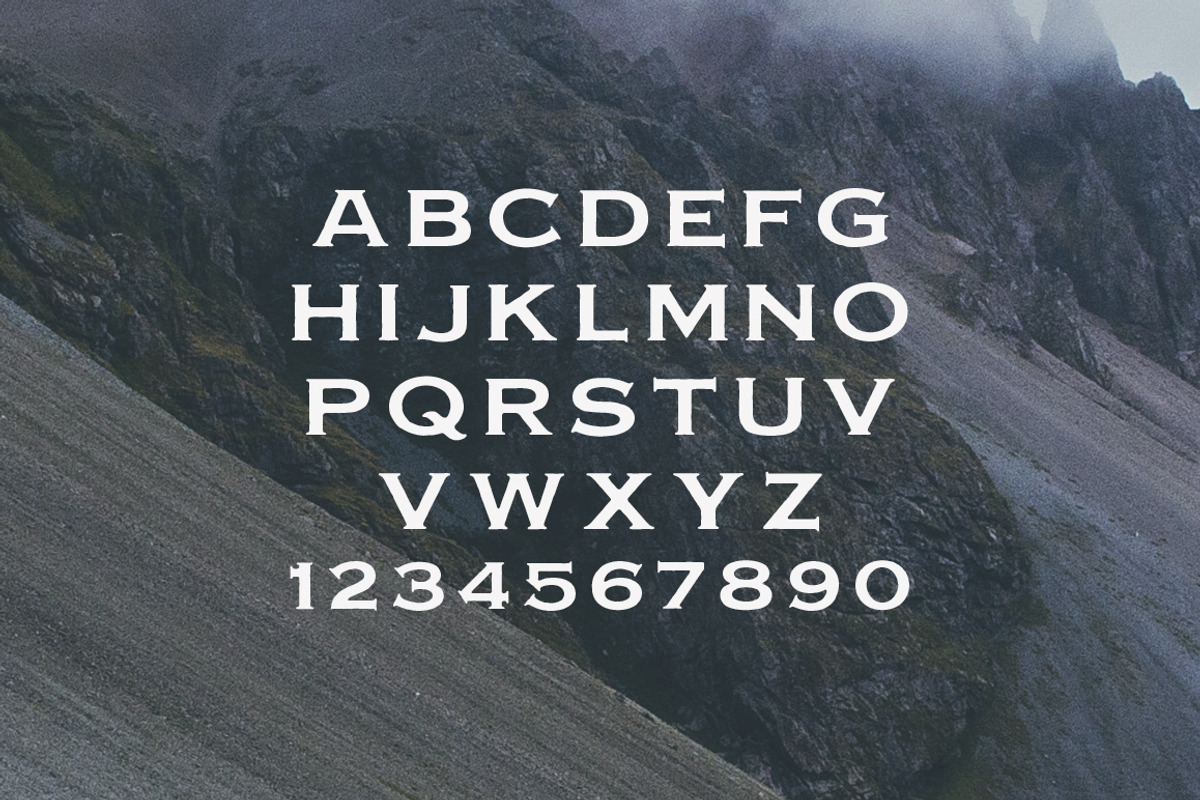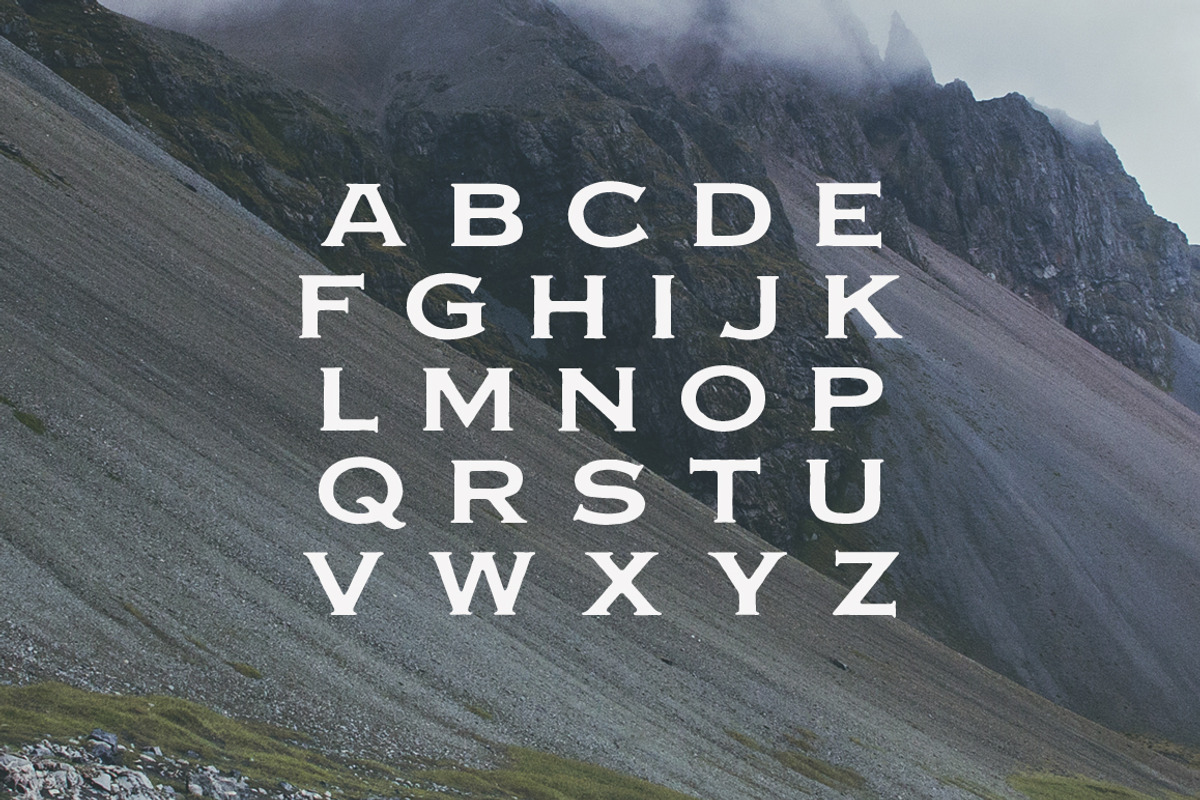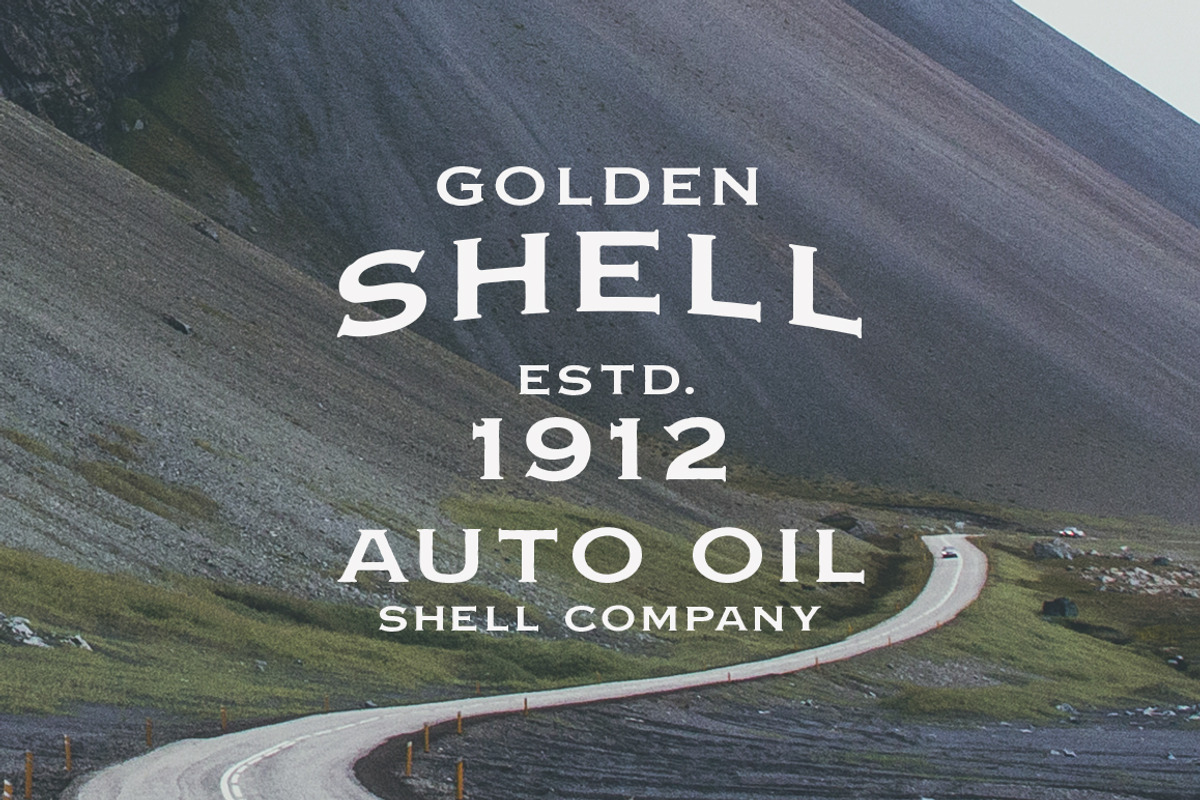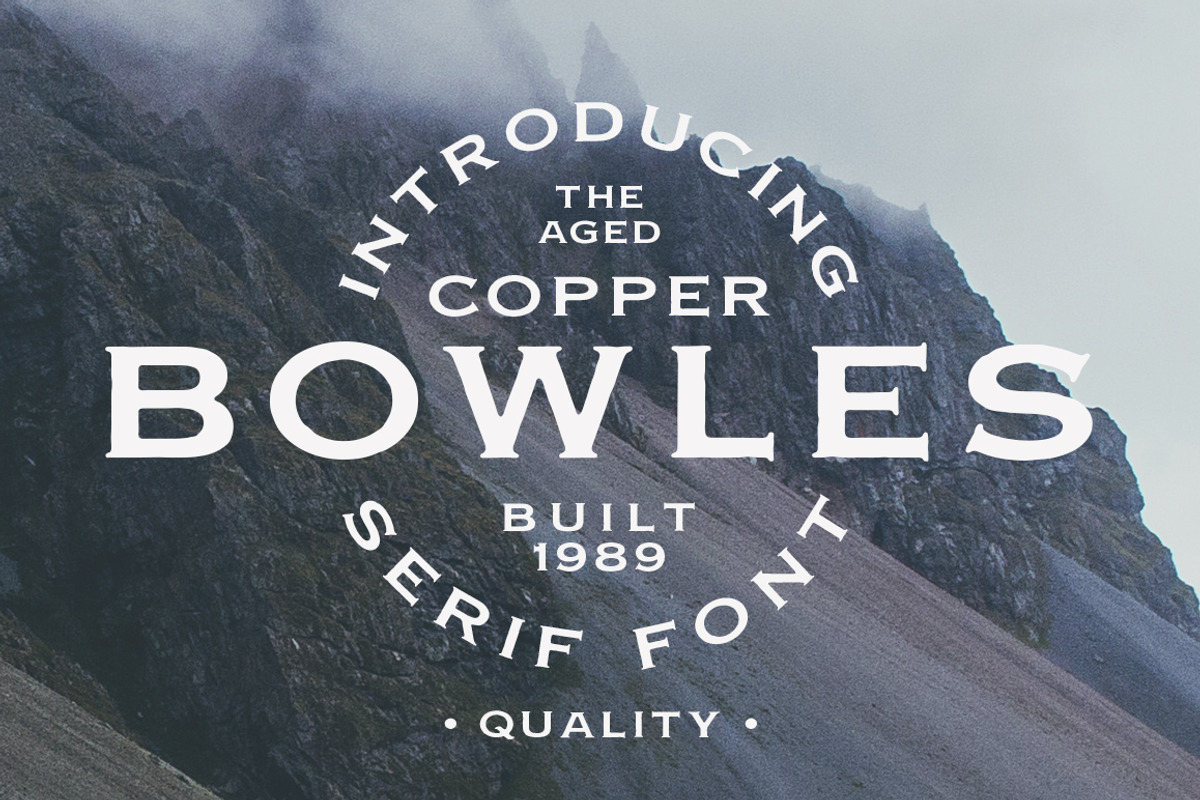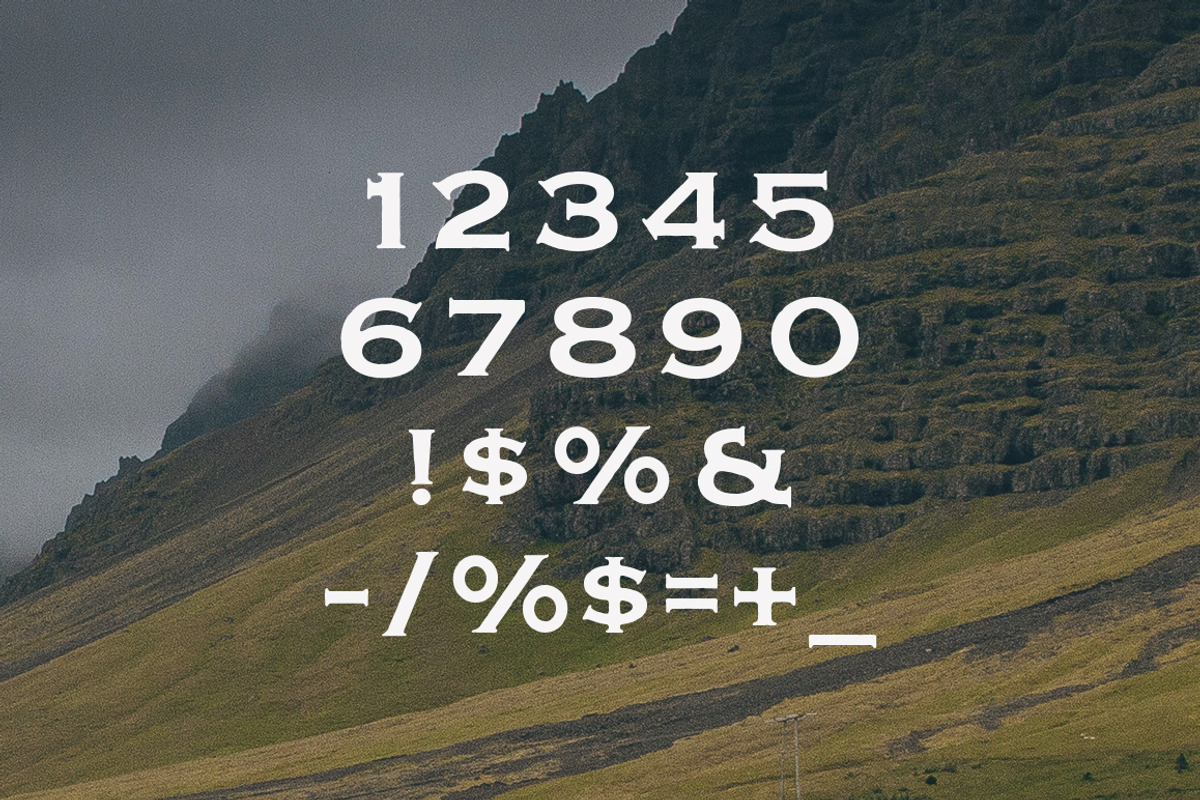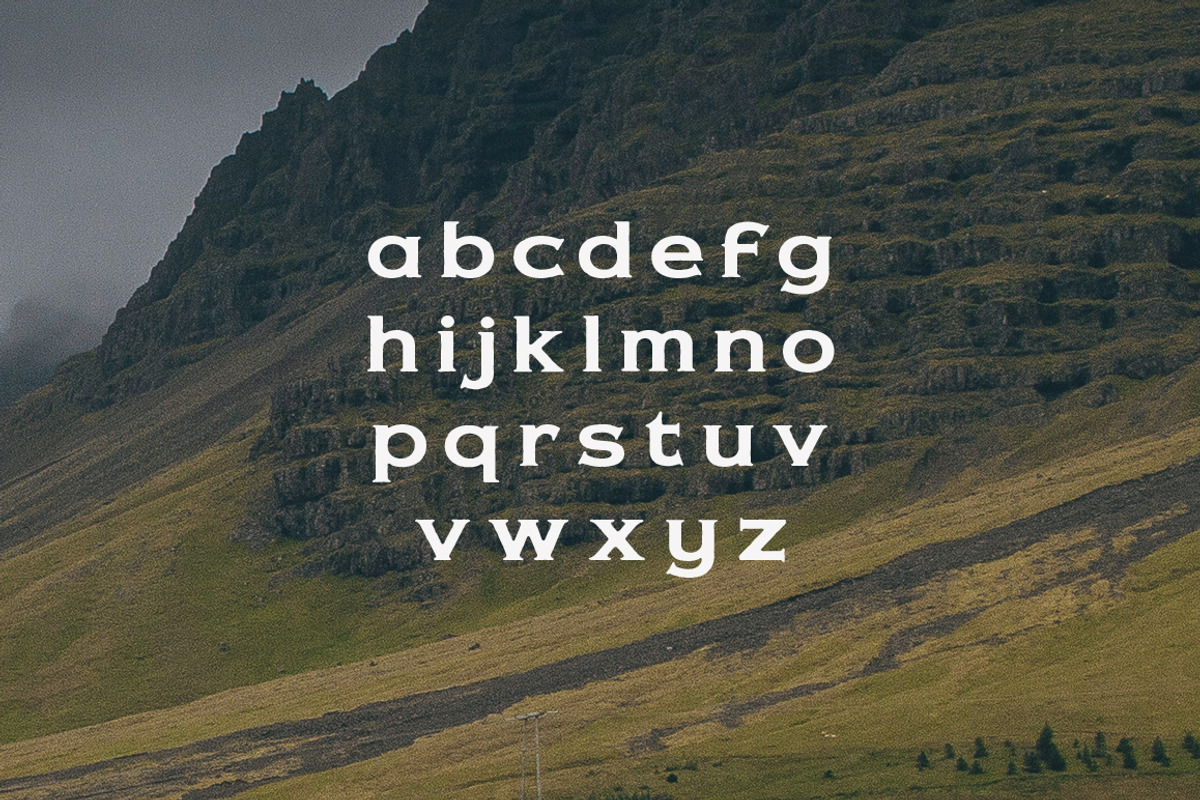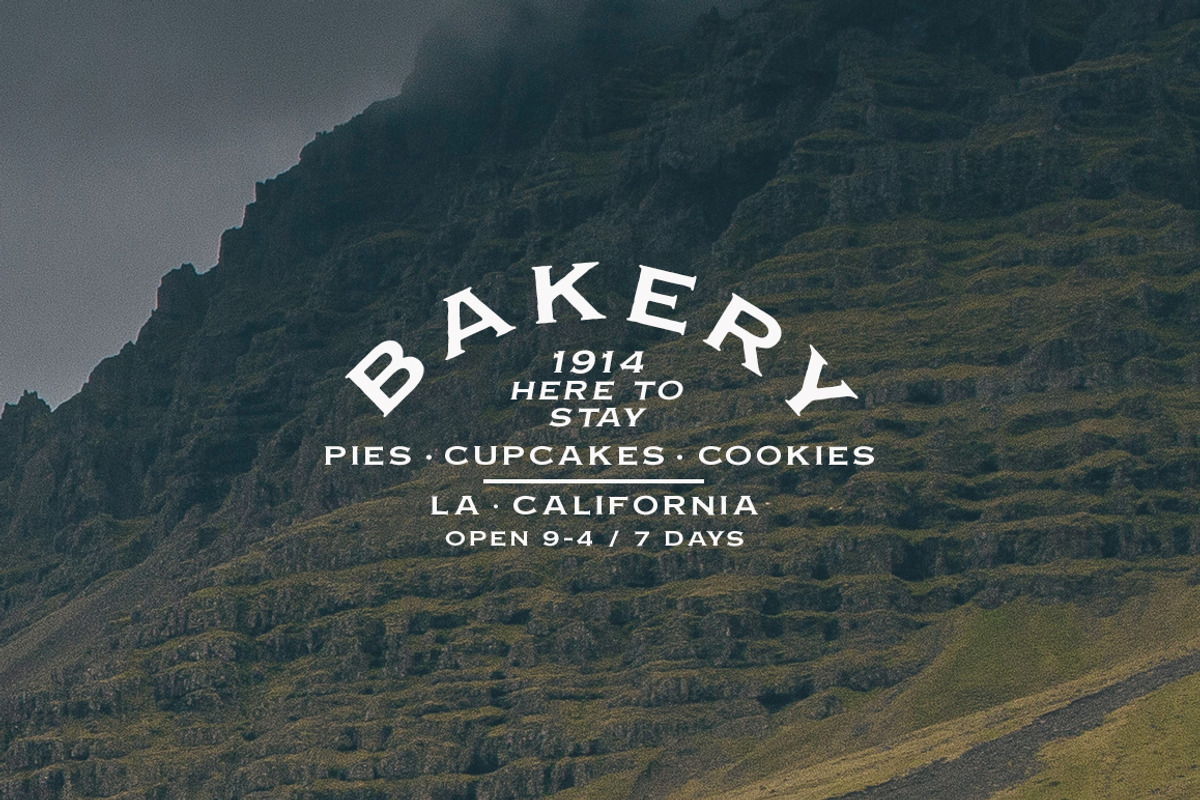
Copper Bowles - Rough Serif Font
Copper Bowles - Rough Serif Font by RyanBowlesDesign is a font selected for branding, posters, packaging, typography.
- Copper Bowles comes with upper and lowercase characters, punctuation glyphs and numerals.
- Worn edges to offer an aged feel
- Rounded corners and serifs to soften its overall vibe
- A wider horizontal axis of all characters, numerals and punctuation glyphs.
Why Copper Bowles - Rough Serif Font is worth a look
Copper Bowles - Rough Serif Font by RyanBowlesDesign fits naturally into Branding, posters, packaging, typography.